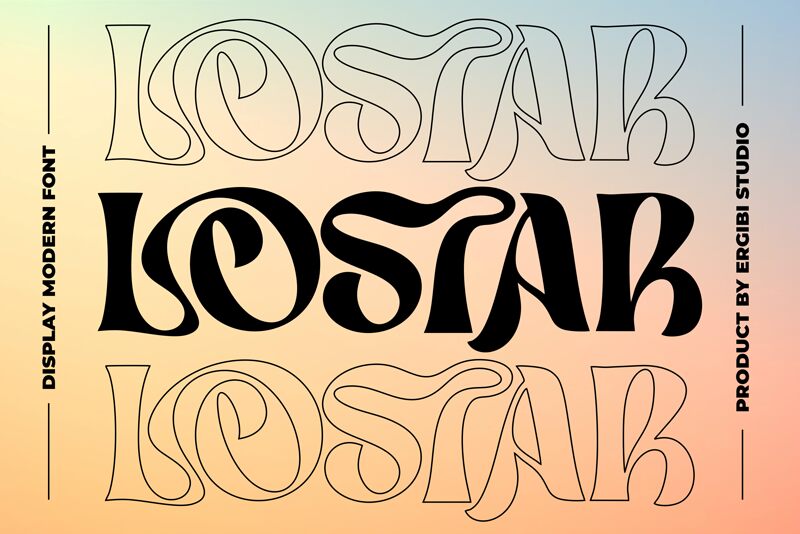
Lostar
Lostar is a bold, groovy display font by designer Riyadh Rahman. Perfect for creating captivating, eye-catching designs that stand out, Lostar is ideal for posters, logos and headlines with a modern edge.